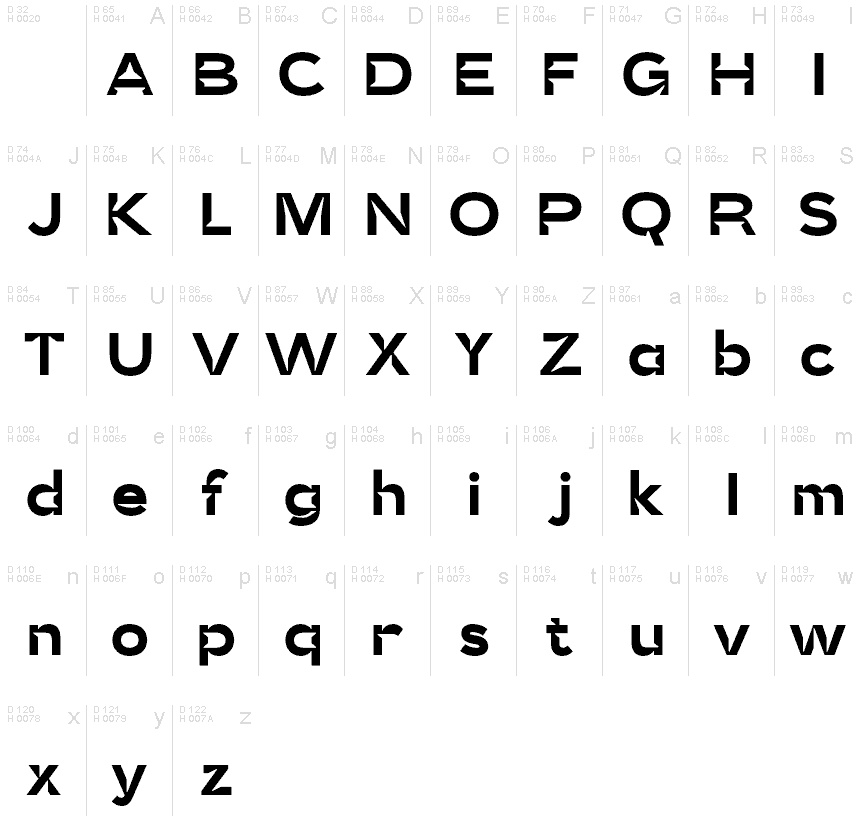
CS Feisty Regular Demo
CS Feisty font by Craft Supply Co. is a modern, expanded sans serif with a geometric and minimalist approach. The font includes uppercase alphabet characters and numbers that showcase a clean professional appearance. With sharp corners, straight edges, and subtle rounded details, it evokes a futuristic feeling suitable for cutting-edge projects.